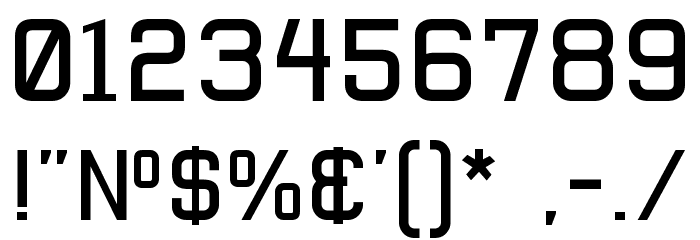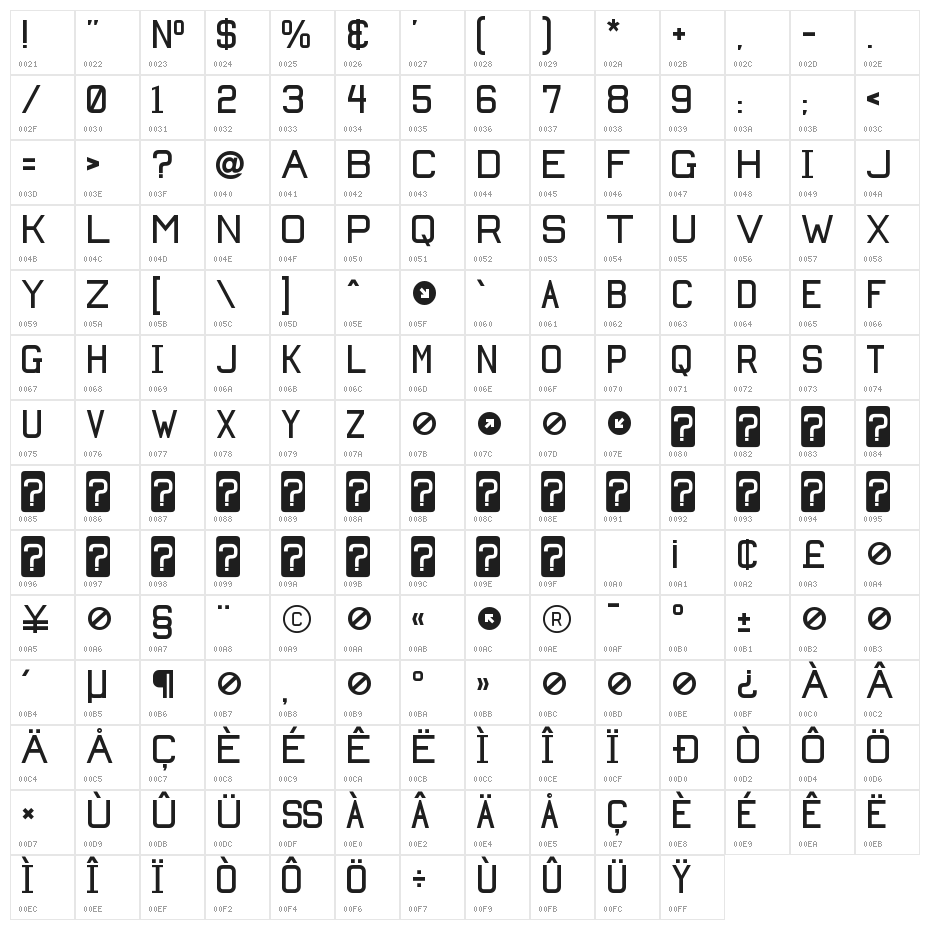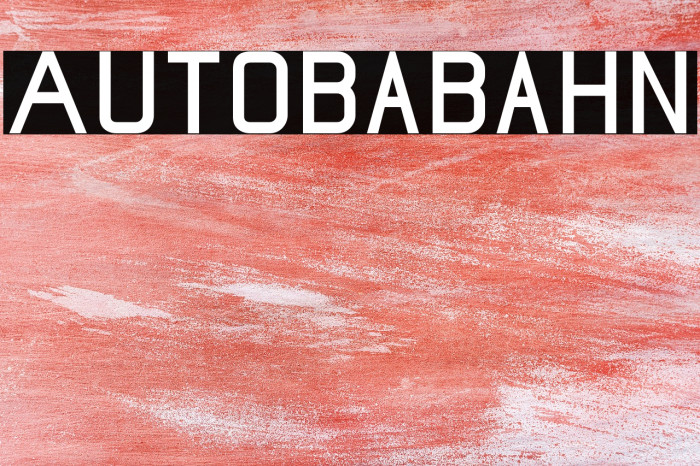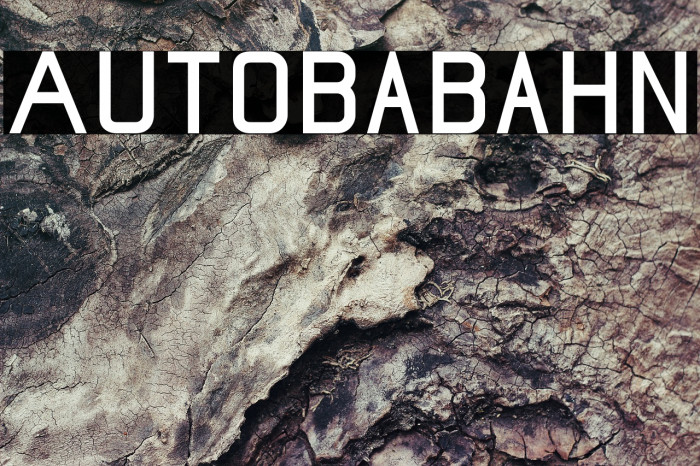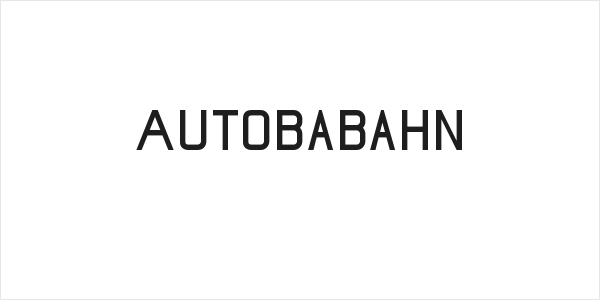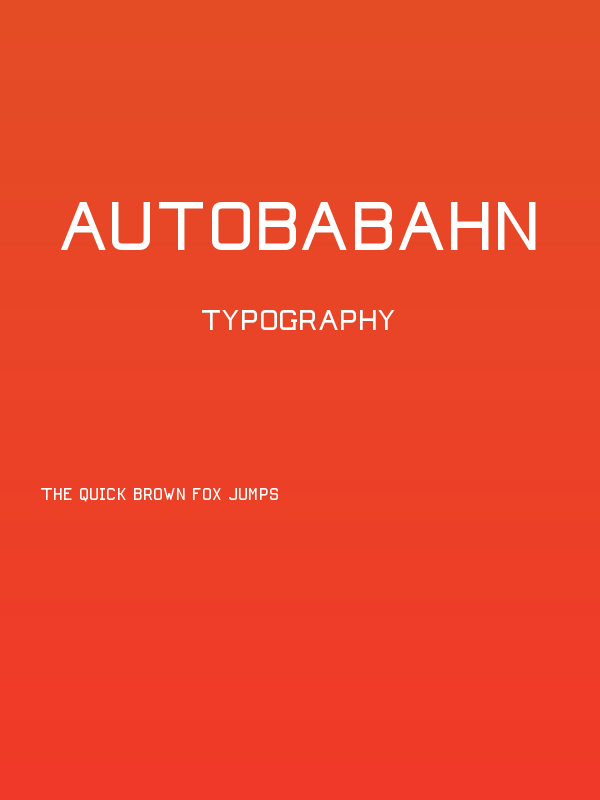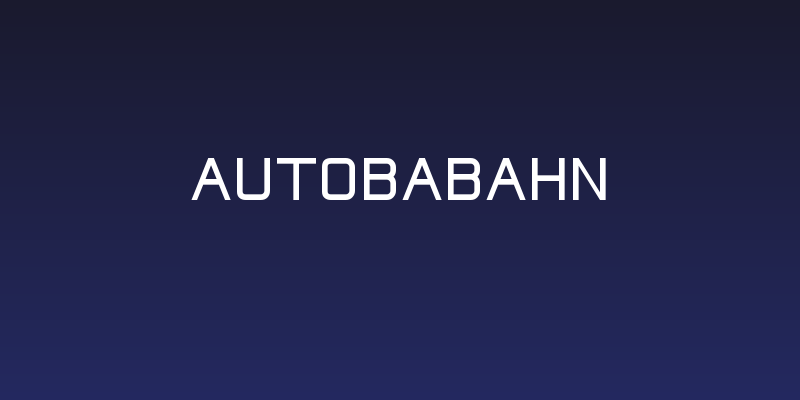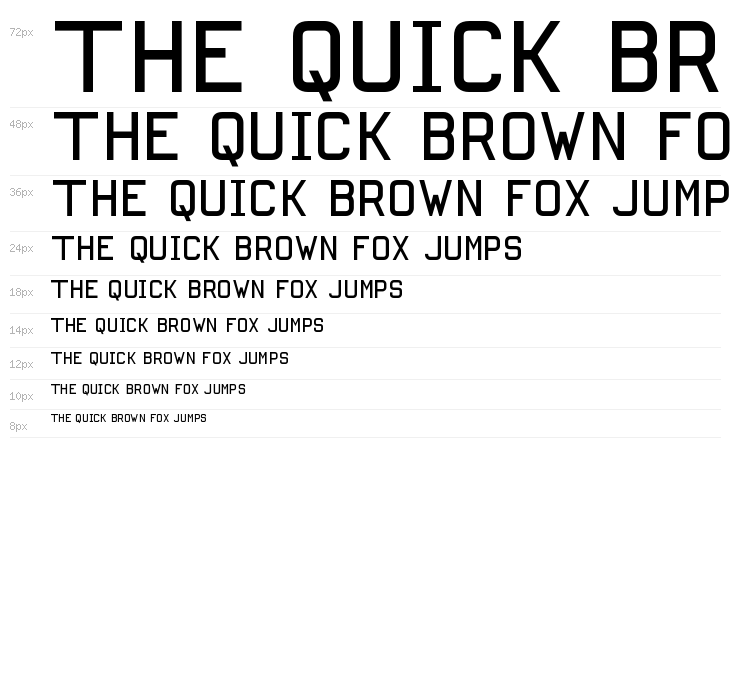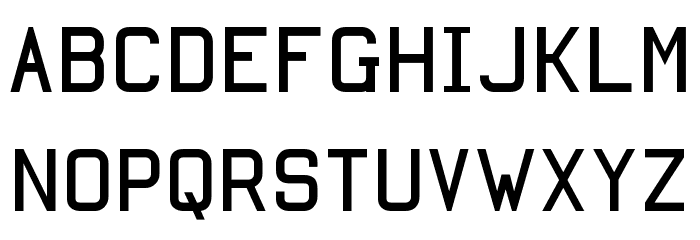
Autobabahn Font
Autobabahn Description
This font features a clean, geometric design with a modern and technical feel. The characters are constructed with consistent stroke widths, giving it a uniform appearance. The uppercase letters are bold and slightly condensed, while the lowercase letters maintain a similar structure, ensuring readability. The numerals are distinct and align well with the overall style, making them suitable for technical or digital contexts. Special characters are included, maintaining the same geometric and structured design, which complements the alphanumeric characters. This font is ideal for projects that require a contemporary and precise look.
| Use Case | Headlines, Logos, Digital Interfaces |
| Proposed Projects | Ideal for digital interfaces, technical documents, branding for tech companies, and modern signage. |